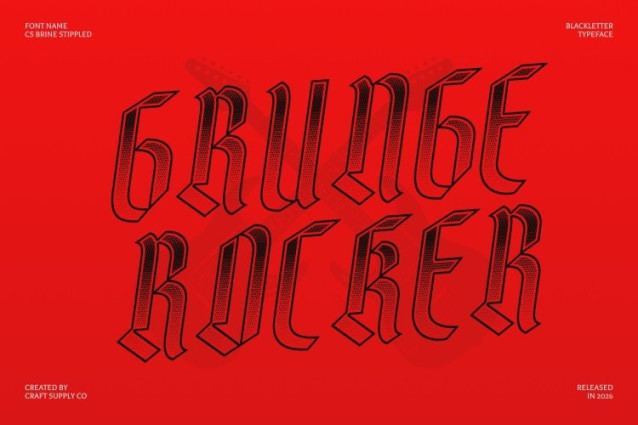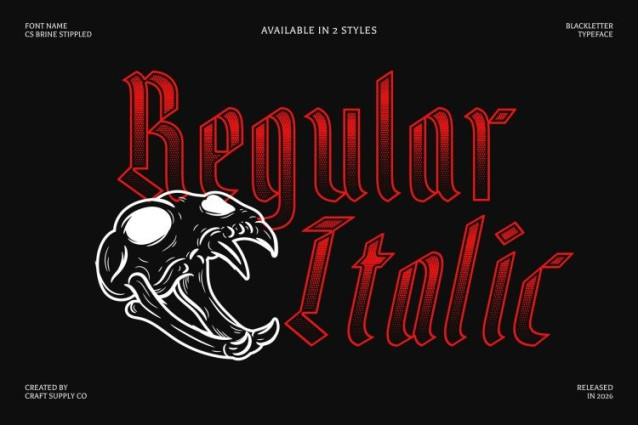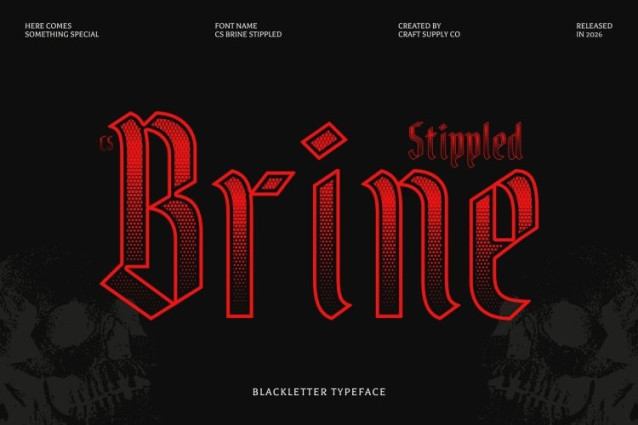
CS Brine Stippled Font
CS Brine Stippled Font – This is a striking blackletter display font that captivates with richly detailed letterforms and bold, sharp shapes. Inspired by traditional blackletter typography, each character carries intricate ornamental elements that reflect the craftsmanship of historical lettering. The addition of a stippled texture introduces subtle depth and an engraved feel, enhancing the visual richness while preserving the authenticity of classic blackletter design.
Classic Drama with Artistic Texture
This font delivers a powerful classic and dramatic impression, reminiscent of medieval manuscripts and historic calligraphy. Its bold structure commands attention, while the ornate forms and stippled details add layers of visual texture and sophistication. The result is a typeface that feels both historic and expressive, combining bold presence with intricate artistic character.
Historic Style with Distinctive Character
The balance between sharp gothic forms and textured detailing gives this font a strong and recognizable identity. The stippled effect enhances the dramatic strokes and decorative edges, making each letter appear more dynamic and visually engaging. This combination creates typography that feels authentic.
Perfect for Vintage and Gothic-Themed Design
This is ideal for projects that celebrate heritage, tradition, and dramatic visual style. It works beautifully for vintage posters, gothic-themed designs, branding with historical character, formal invitations, and artistic headlines. With its blend of blackletter elegance and textured depth, this font brings a powerful historical presence to any design composition.